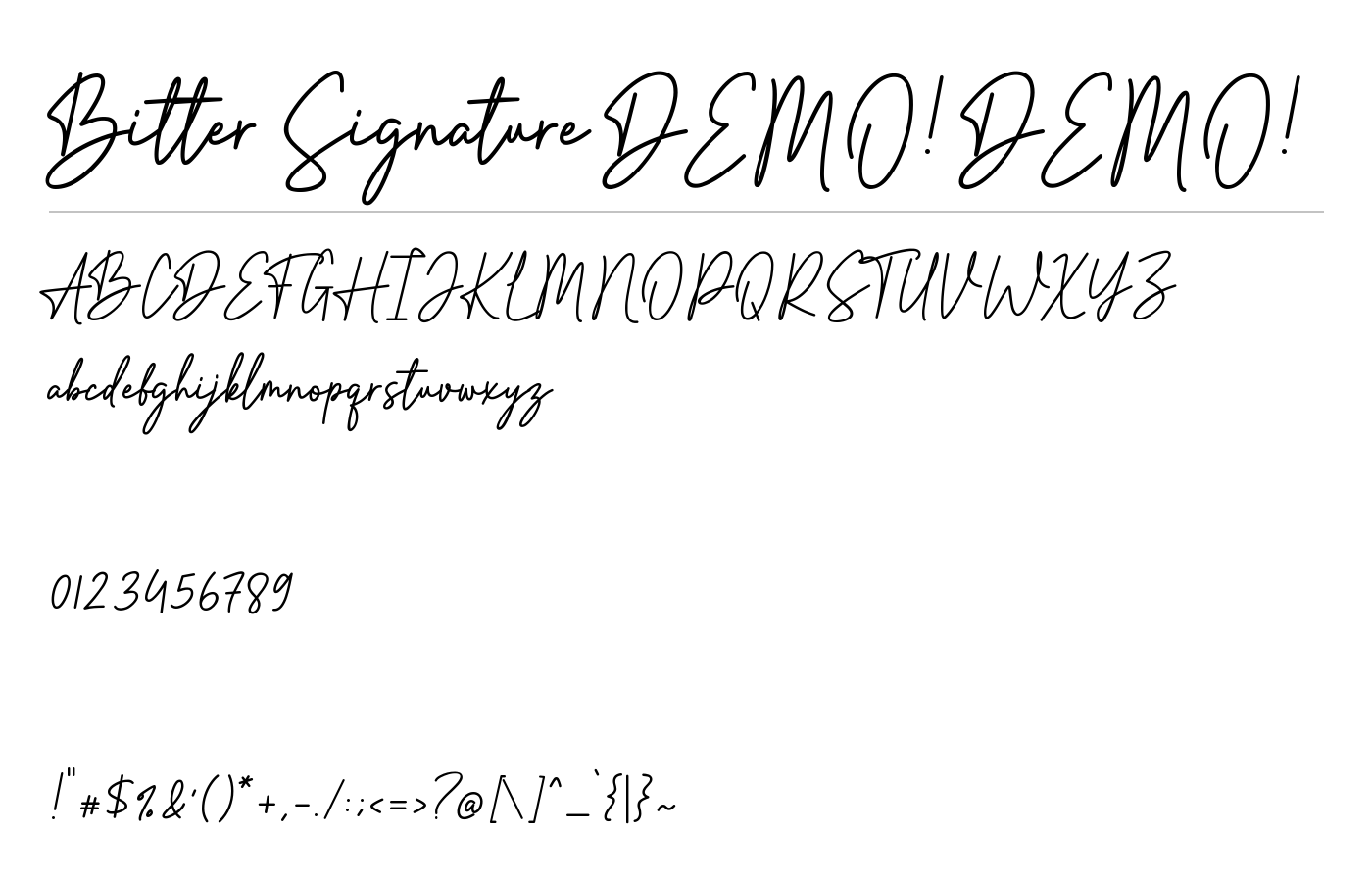
Bitter Signature DEMO is a playful, elegant script font that mimics natural, flowing handwriting with slender, smooth strokes and a casual, personal feel. Its tall, narrow letterforms and delicate lines make it ideal for stylish logos, invitations, and branding projects that seek a modern yet approachable handwritten look. This font works particularly well for creative and lifestyle-focused designs that want to convey authenticity and charm.
Bitter Signature DEMO! Font
About Bitter Signature DEMO! Font